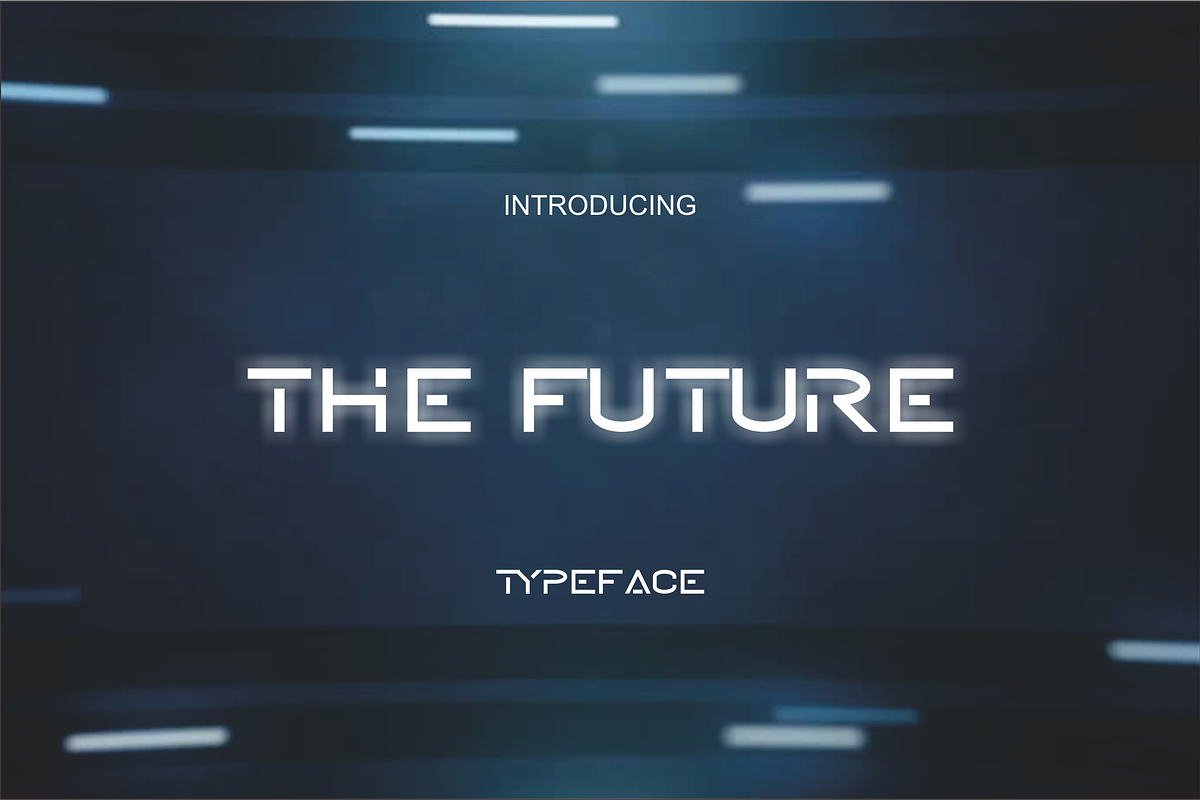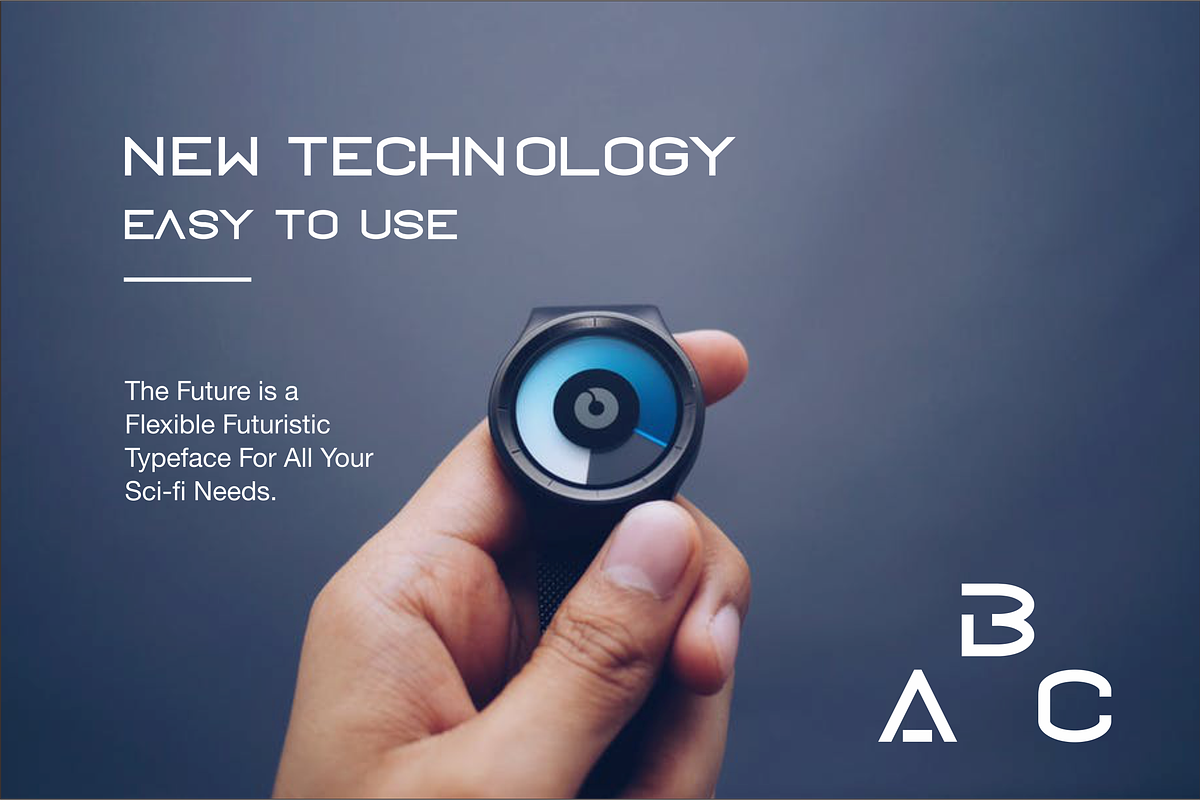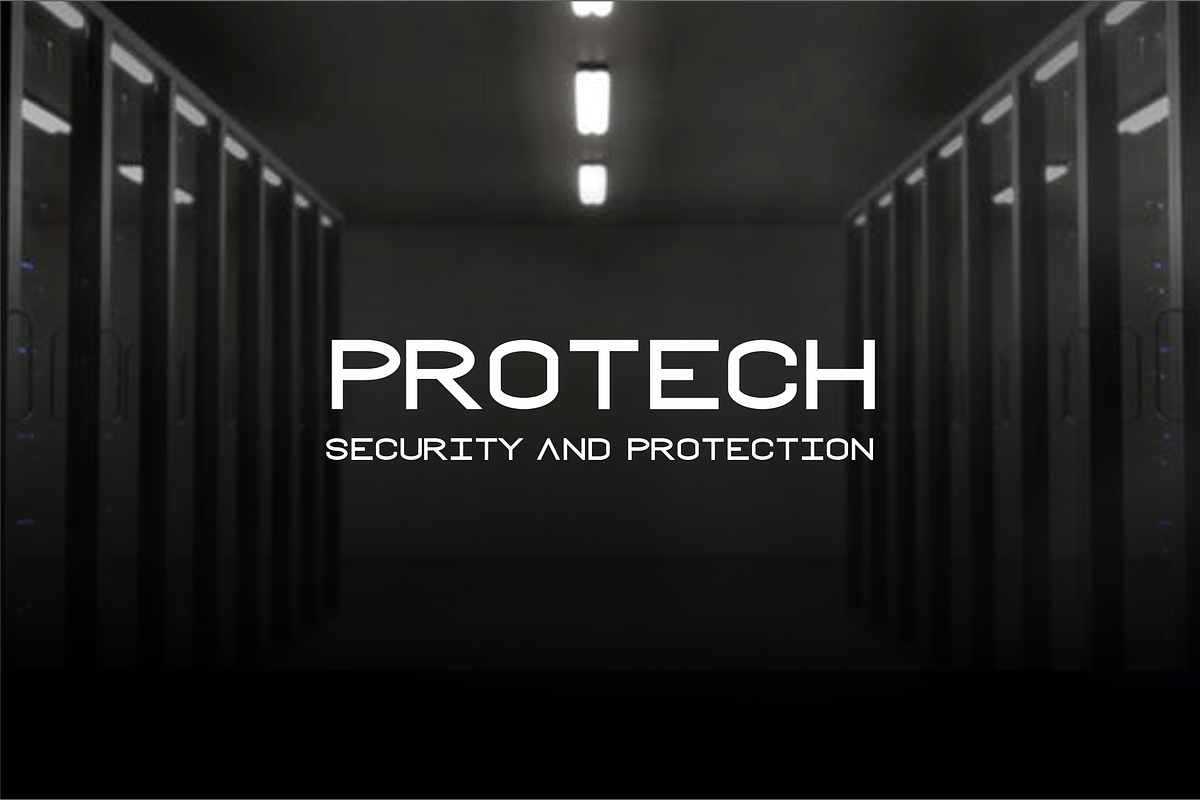
THE FUTURE TYPEFACE
THE FUTURE is a flexible futuristic typeface for all your sci-fi needs.
THE FUTURE TYPEFACE by Akdesain fits naturally into Branding, posters, packaging, typography.